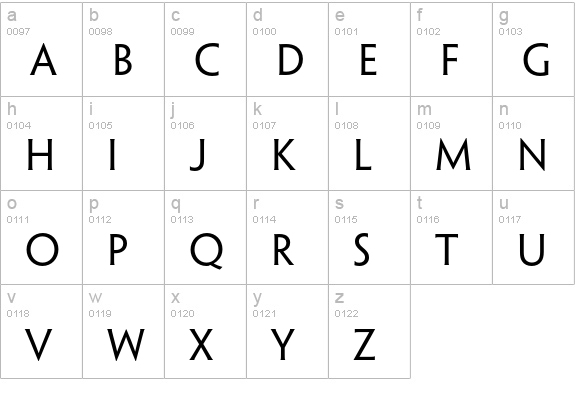
Penumbra Flare Std Font Details
Penumbra Flare Std font is a stunning display typeface that exudes elegance and sophistication. Its unique combination of sharp edges and smooth curves creates a dynamic visual impact that is sure to captivate any audience. With its bold and strong letterforms, this font is perfect for creating eye-catching headlines, logos, and titles. What sets Penumbra Flare Std font apart is its versatility. Whether used in print or digital media, it effortlessly adapts to various design styles and themes. Its clean and legible characters make it ideal for both large and small sizes, ensuring readability across different mediums. Not only does Penumbra Flare Std font offer exceptional aesthetics, but it also provides a seamless user experience. Its meticulous attention to detail and precise kerning ensure optimal readability, even at smaller sizes. The font's balanced letterforms and consistent spacing create a harmonious flow of text, enhancing the overall reading experience. One of the best things about Penumbra Flare Std font is that it is freely available to download at FontsMarket.com. This means that designers and creatives can access this incredible font without any cost, making it an excellent choice for those on a budget or looking to add a touch of sophistication to their projects without breaking the bank. Whether you're designing a website, creating a brochure, or crafting a poster, Penumbra Flare Std font is a versatile and visually stunning choice. Its elegant and captivating design, combined with its availability as a free download, makes it a must-have for any designer's toolkit. So why wait? Head over to FontsMarket.com and download Penumbra Flare Std font today to take your designs to the next level.